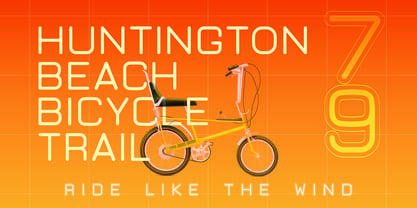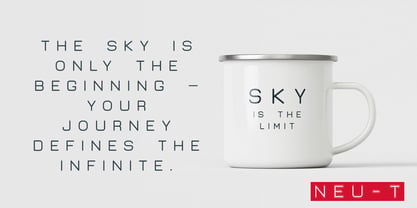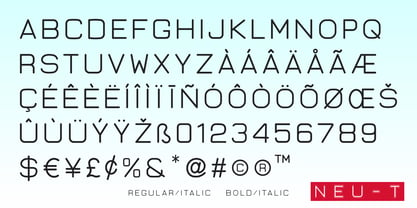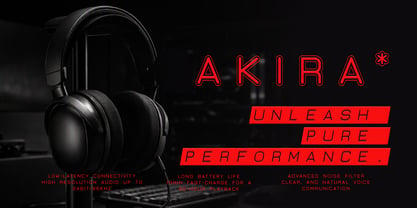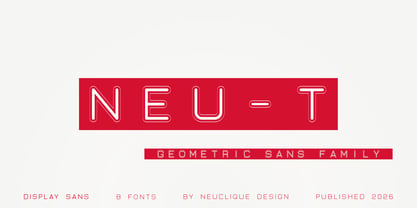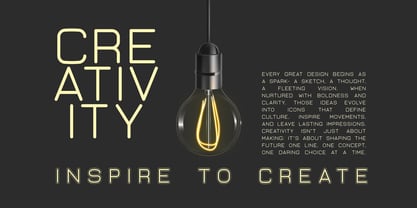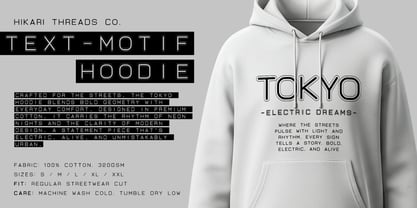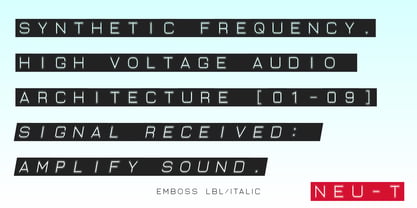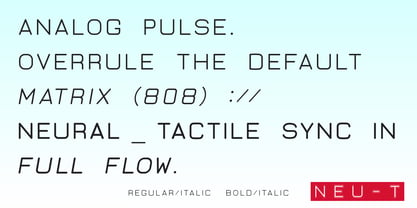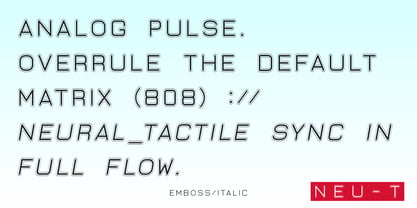
Neu T
La famille de polices Neu T a été conçue par Syed Murtaza et publiée par Neuclique Design. Neu T contient 5 styles et options de package familial. En savoir plus sur cette famille
Neu-T is a bold, geometric display family designed by Neuclique Design. Rooted in retro-industrial aesthetics and precision engineering, Neu-T brings the tactile charm of vintage embossed label-maker tape into a modern digital workflow.
Designed with perfect pixel-level vertical alignment across all variants, styles can be layered seamlessly for multi-color branding, 3D display graphics, and packaging design.
Bring tactile industrial style to your next project with Neu-T.